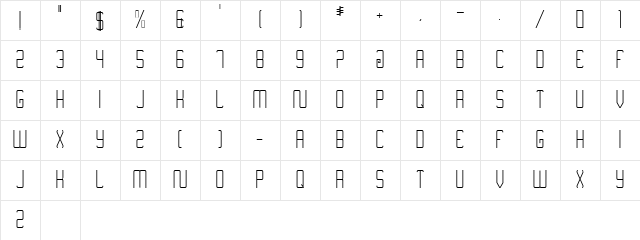
Nimiran Regular Free Font
Nimiran Regular
Foundry: Tharique Azeez
Designer: Tharique Azeez
Nimiran Family
Nimiran Regular
Design Context for Nimiran
Nimiran is a composed and adaptable typeface that performs quietly and consistently across a wide range of design contexts.